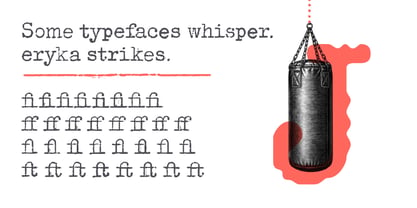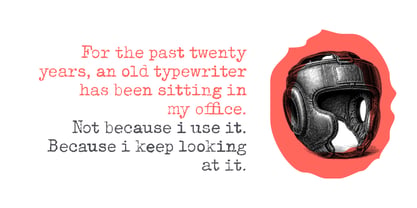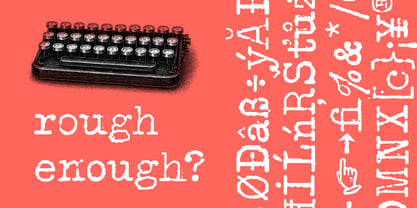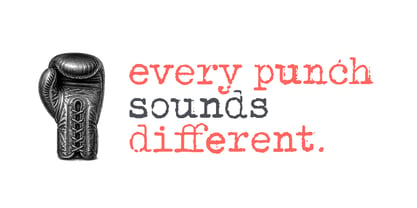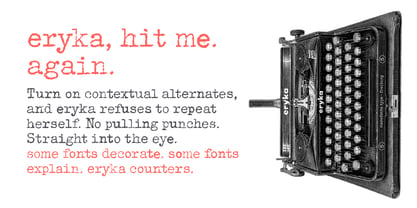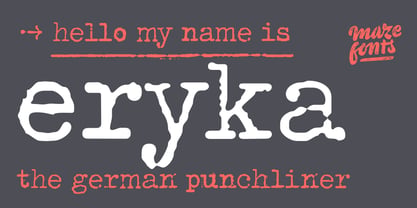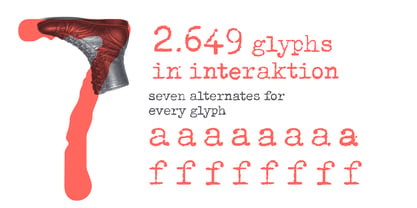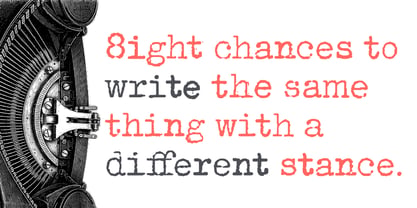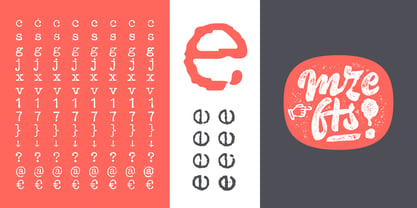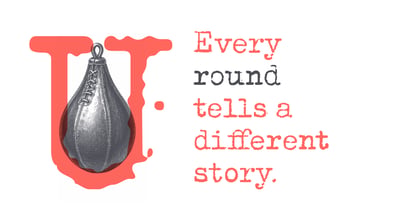
Eryka
La familia tipográfica Eryka fue diseñada por Matthias Wieber y publicada por mazefonts. Eryka contiene 1 estilos. Más información sobre esta familia
eryka —
the german punchliner.
2.649 glyphs in interaktion
Some typefaces whisper.
erika strikes.
She doesn't care for perfect curves or polished repetition. Every letter arrives with a different attitude, like it has already gone a few rounds before hitting the page. Seven alternates for every glyph. Eight chances to write the same thing with a different stance. Turn on contextual alternates, and erika refuses to repeat herself. The rhythm shifts. The texture breathes. Tiny imperfections land like well-timed jabs, just like a real typewriter that never asked for your approval. No pulling punches. Straight into the eye.
some fonts decorate.
some fonts explain.
eryka counters.
hit me.
again.
Hello, my name is Matthias Wieber. I am an illustrator and graphic designer based in Freiburg, Germany. I am not a type designer. Maze Fonts began as a personal project, somewhere between the demands of family life and my daily work. Typography has always been an essential part of my practice. At some point, I realized that I wanted to stop using other people's typefaces and start creating my own. mazefonts – Beware the Curves.